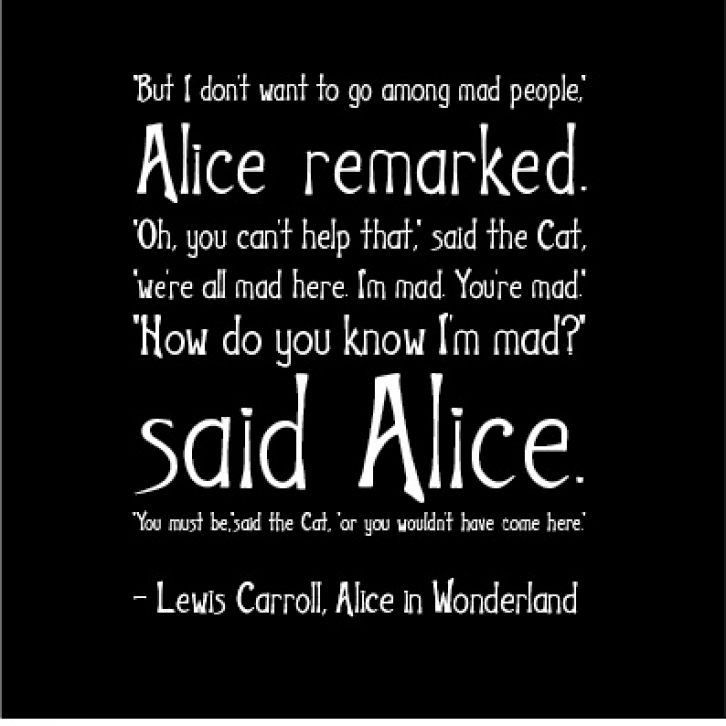
The ‘Uncanny’ font is a decorative typeface designed to to invoke a sense of disturbance or unease when used in typography. Designed with both regularities and irregularities it supports concepts and ideas that are uncanny.
Rather than invoking a sense of horror, Uncanny should indicate that things are somewhat different than the norm, strange or are disturbing.